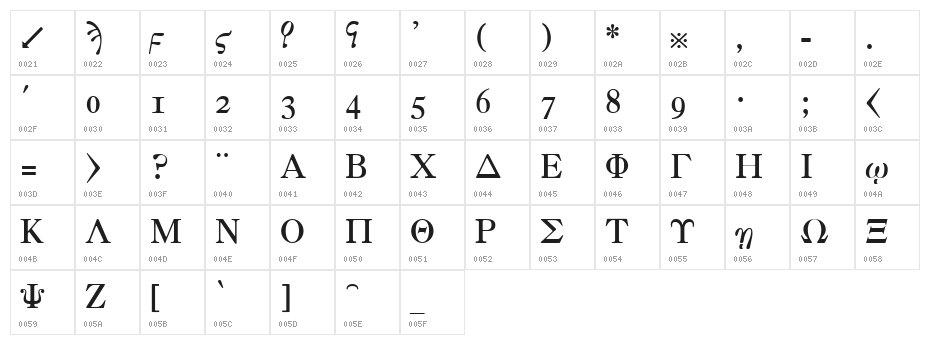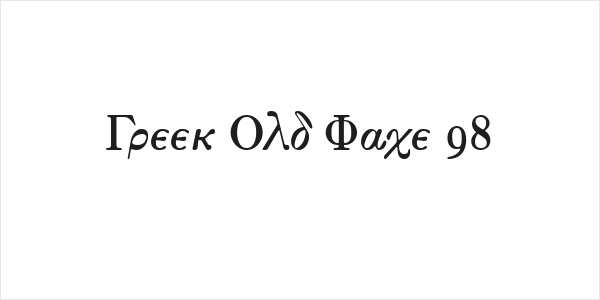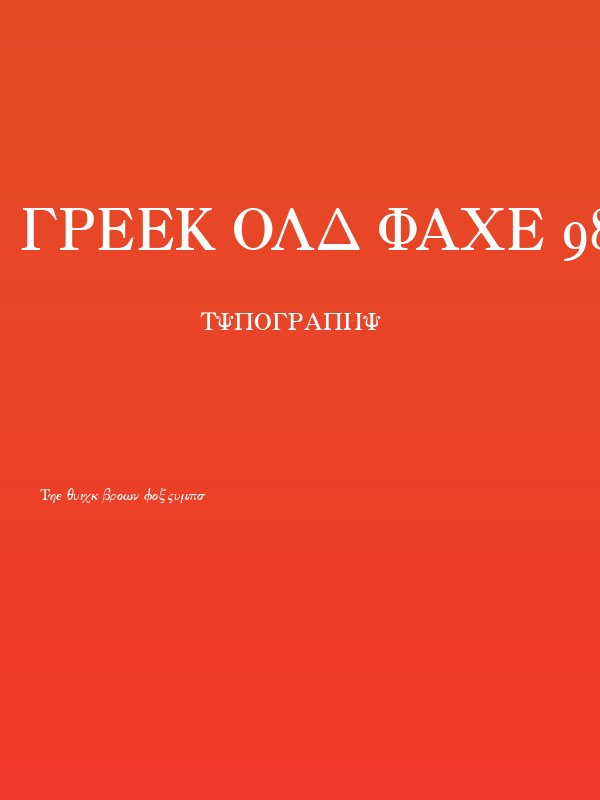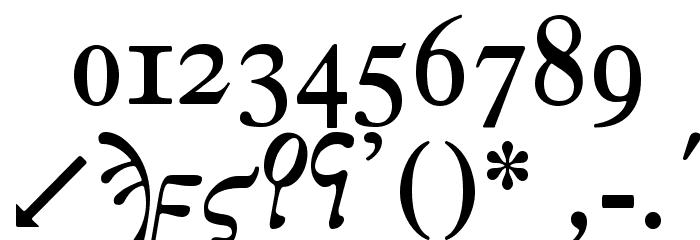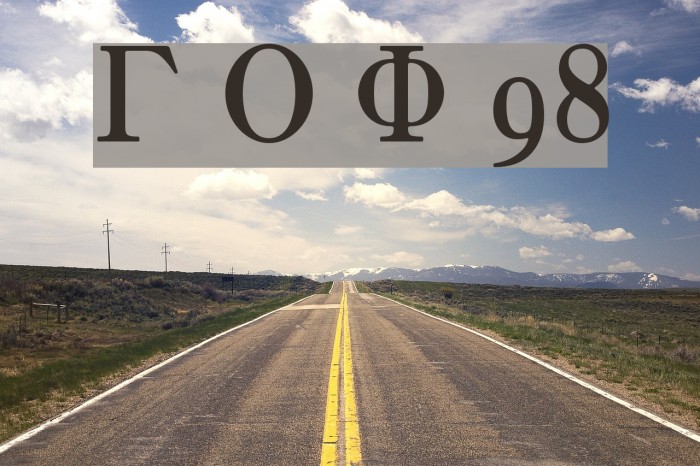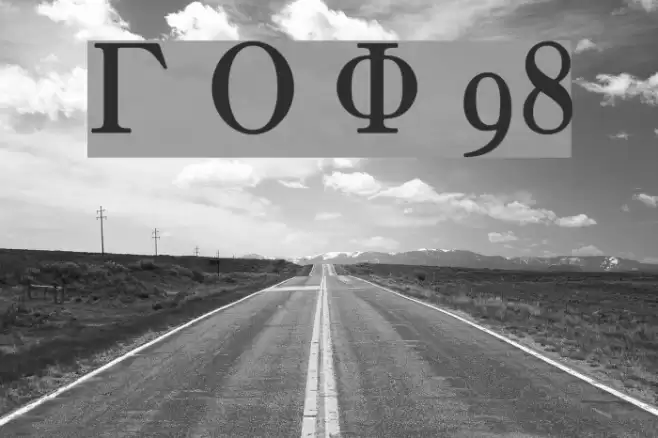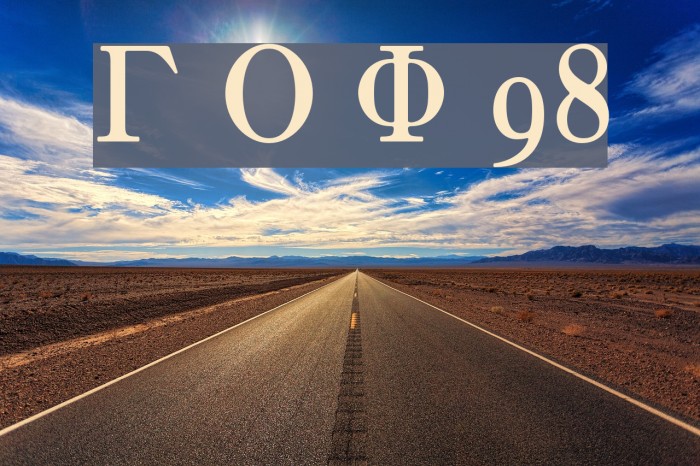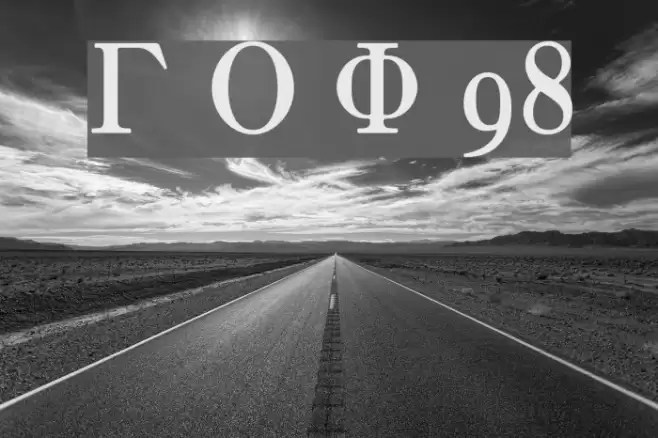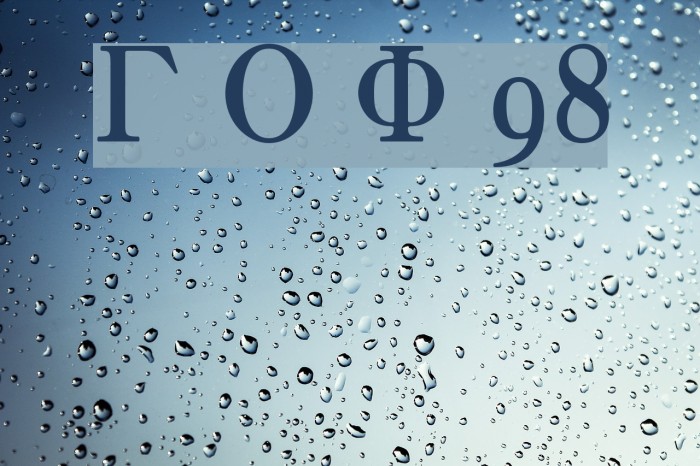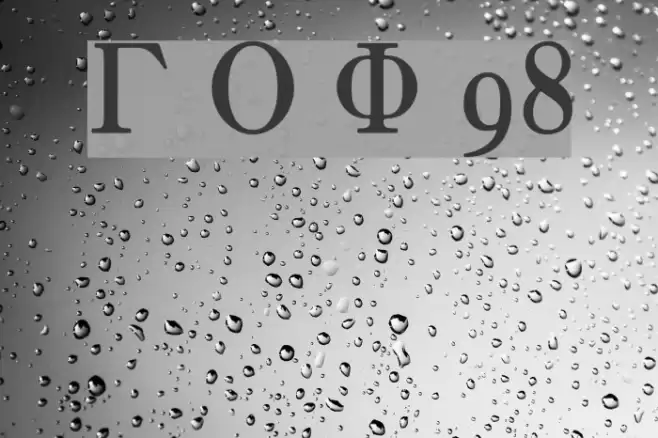
Greek Old Face 98 Font
Greek Old Face 98 Description
This font features a classic and elegant design, reminiscent of traditional Greek typography. The uppercase letters are bold and commanding, with distinct serifs that add a touch of sophistication. The lowercase letters are more fluid and cursive, providing a nice contrast to the structured uppercase. Numbers are clear and easy to read, maintaining the overall aesthetic. Special characters are well-integrated, ensuring consistency across all elements. This font is ideal for projects that require a historical or scholarly feel, while still maintaining readability and style.
| Overall Style | Classic |
| Use Case | Headlines, Body text, Logos |
| Proposed Projects | Ideal for academic publications, historical documents, and classical-themed designs. |